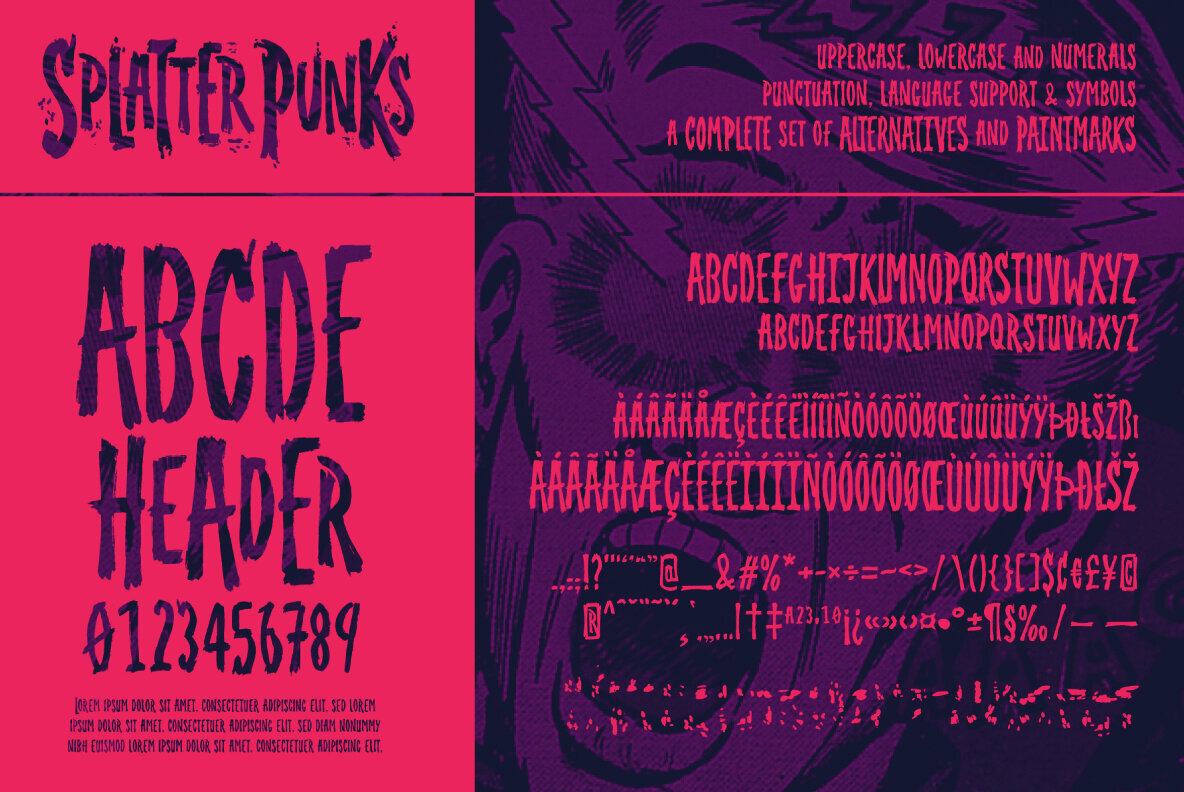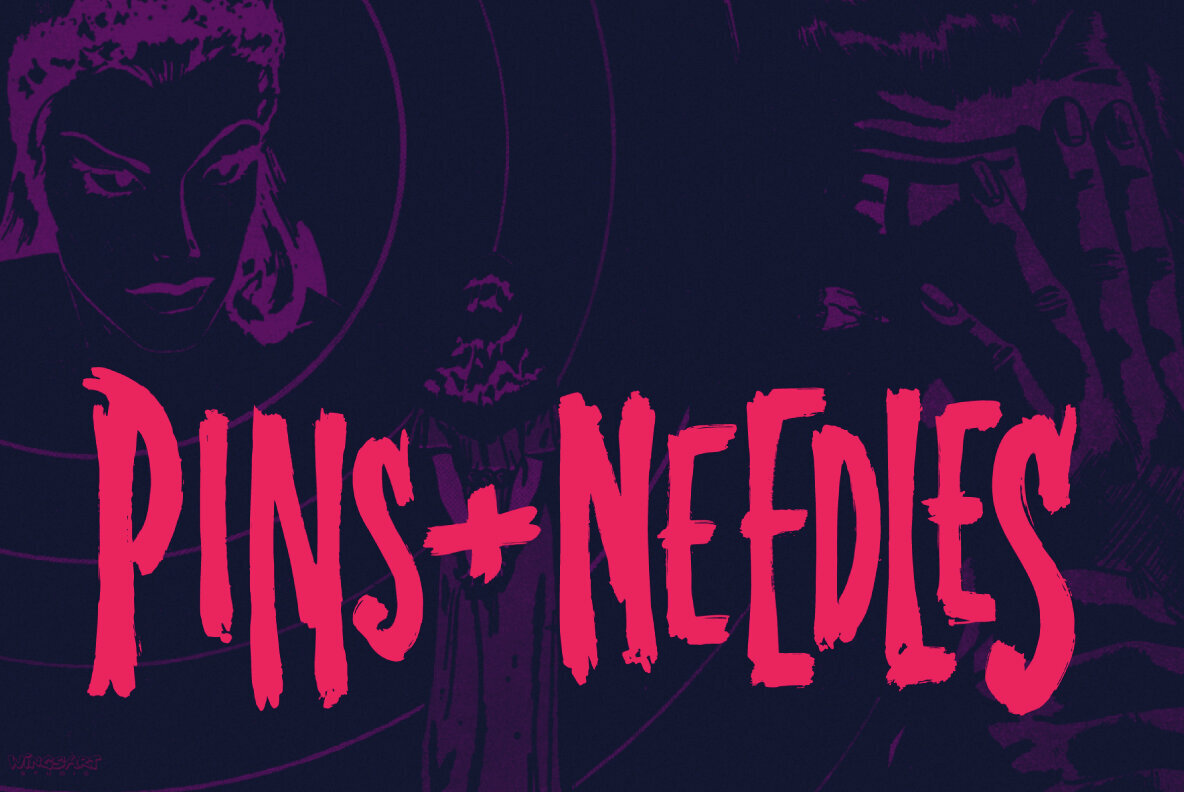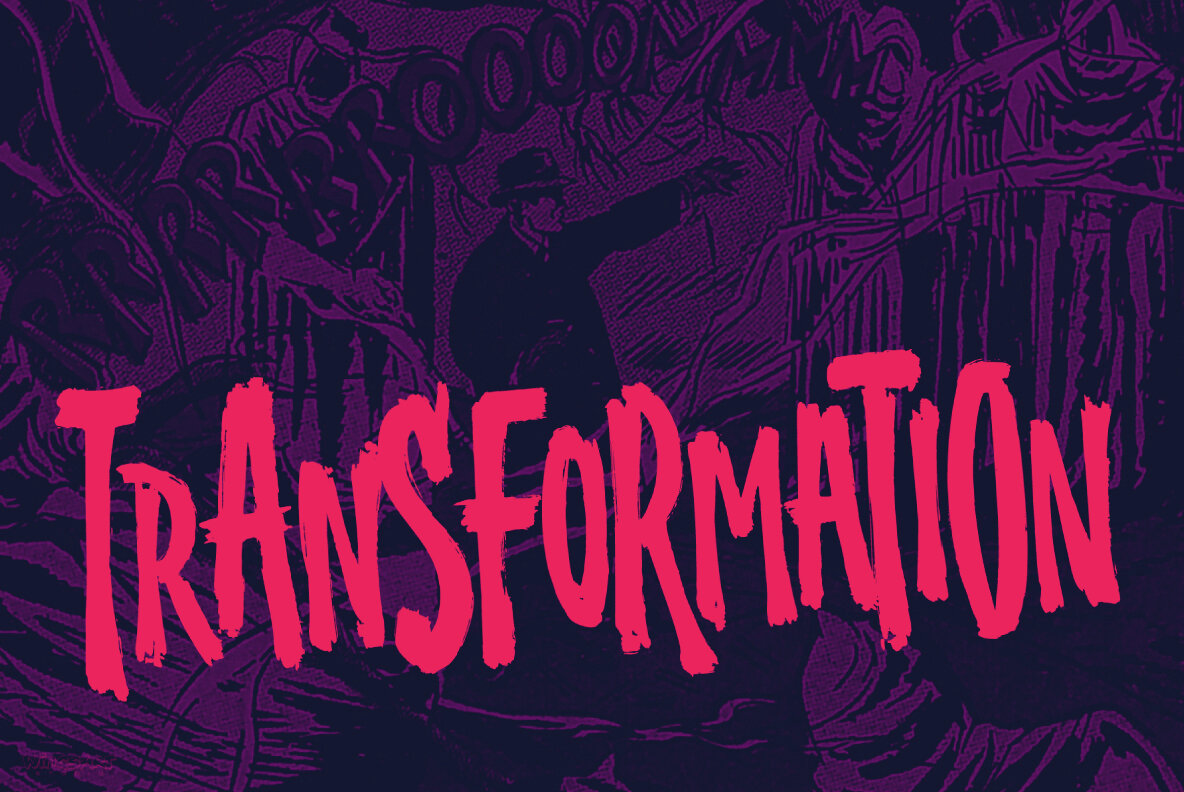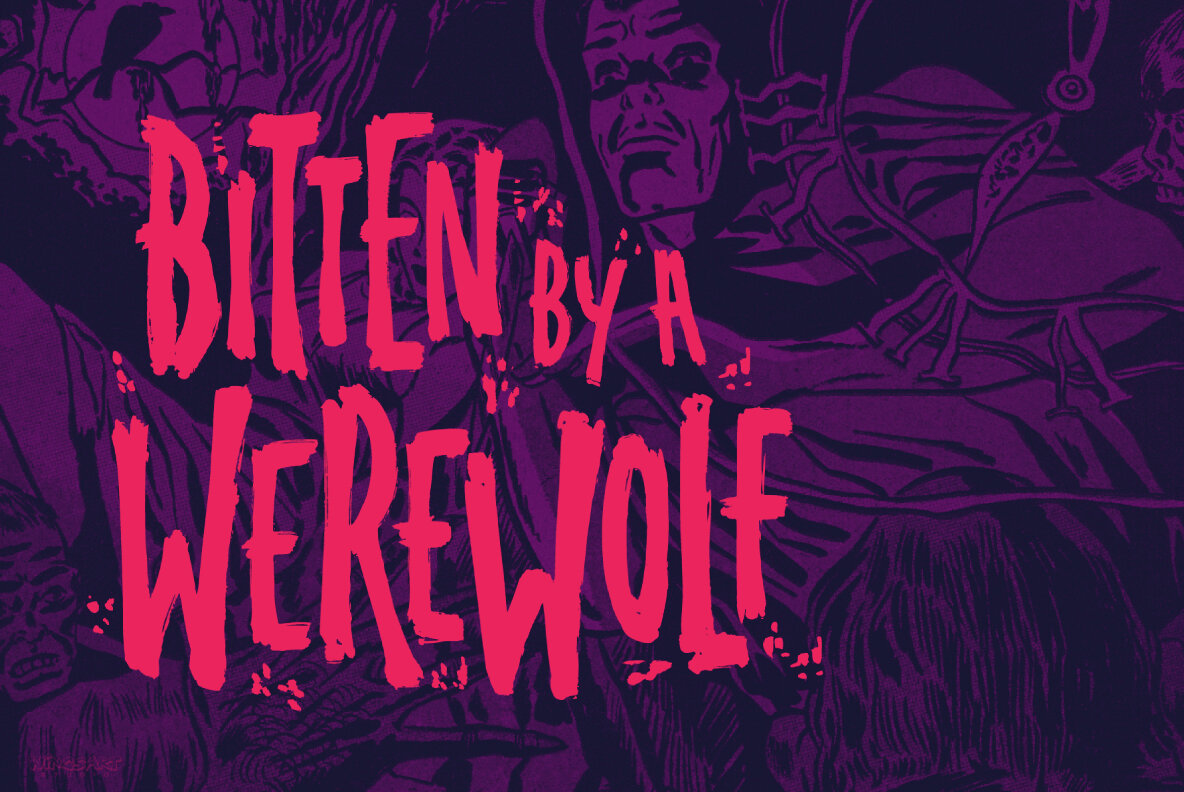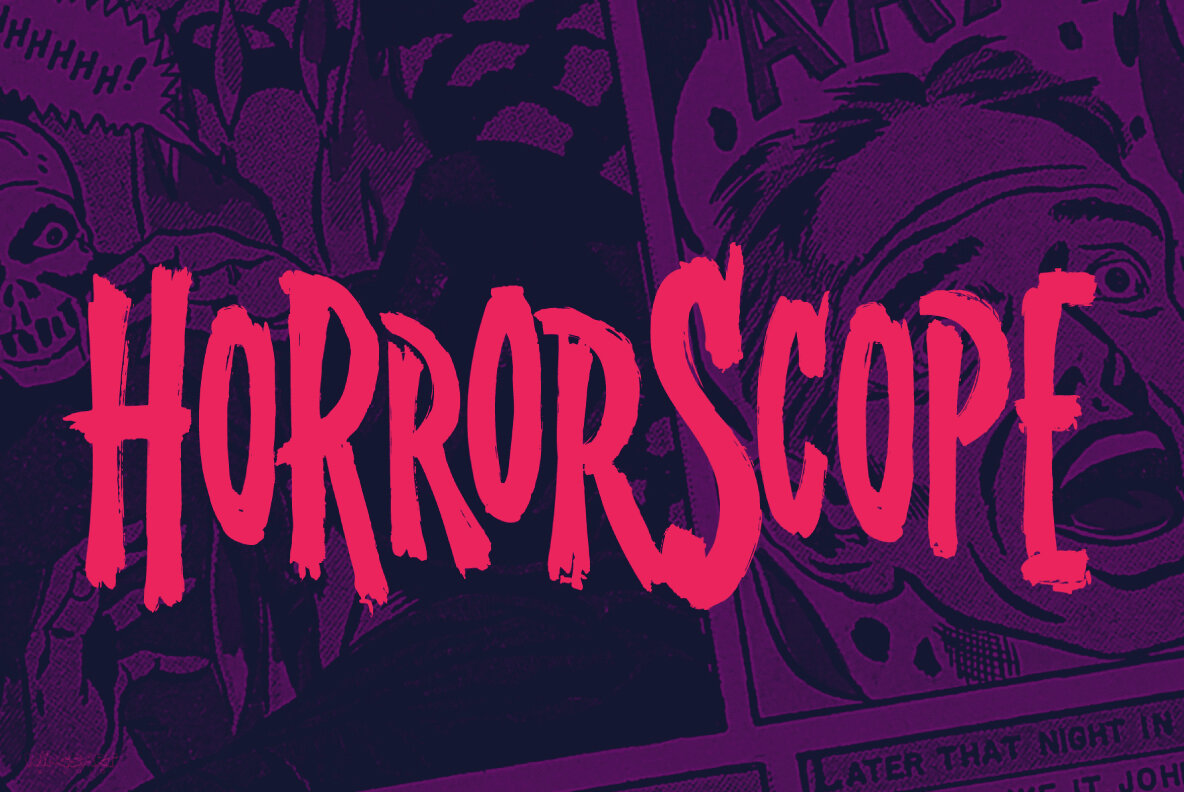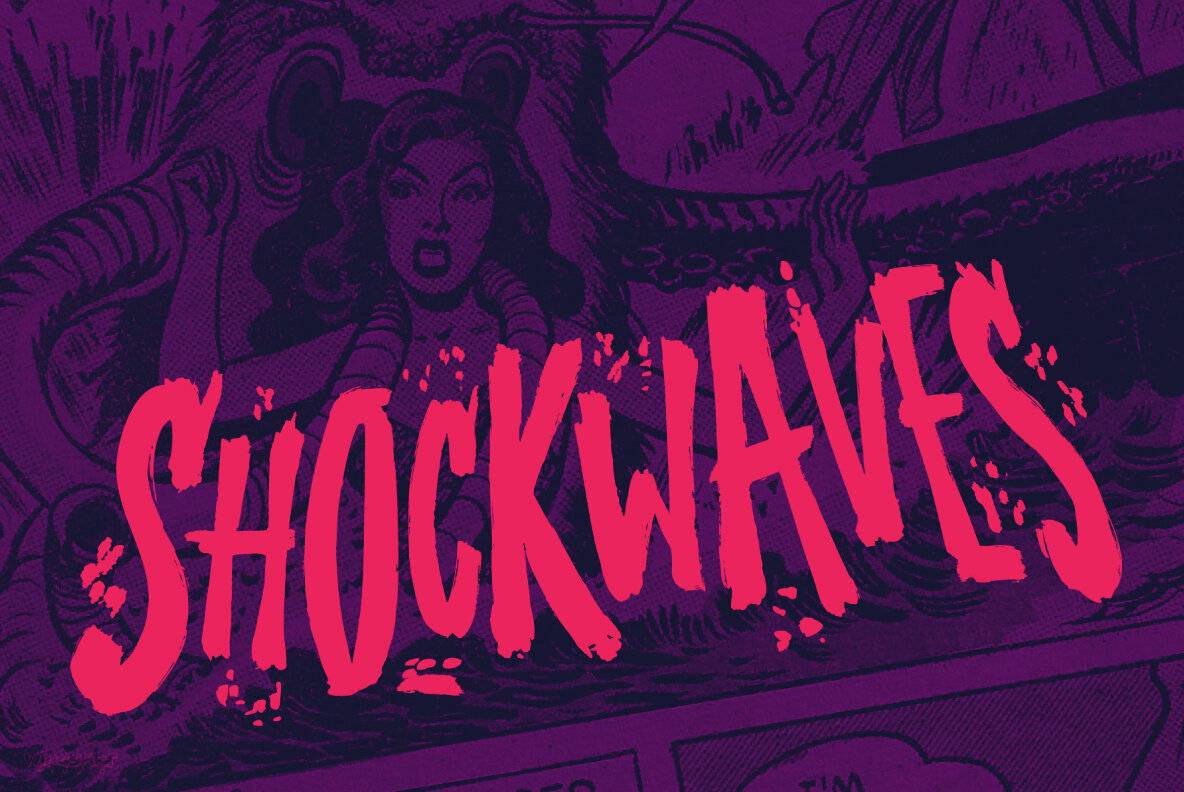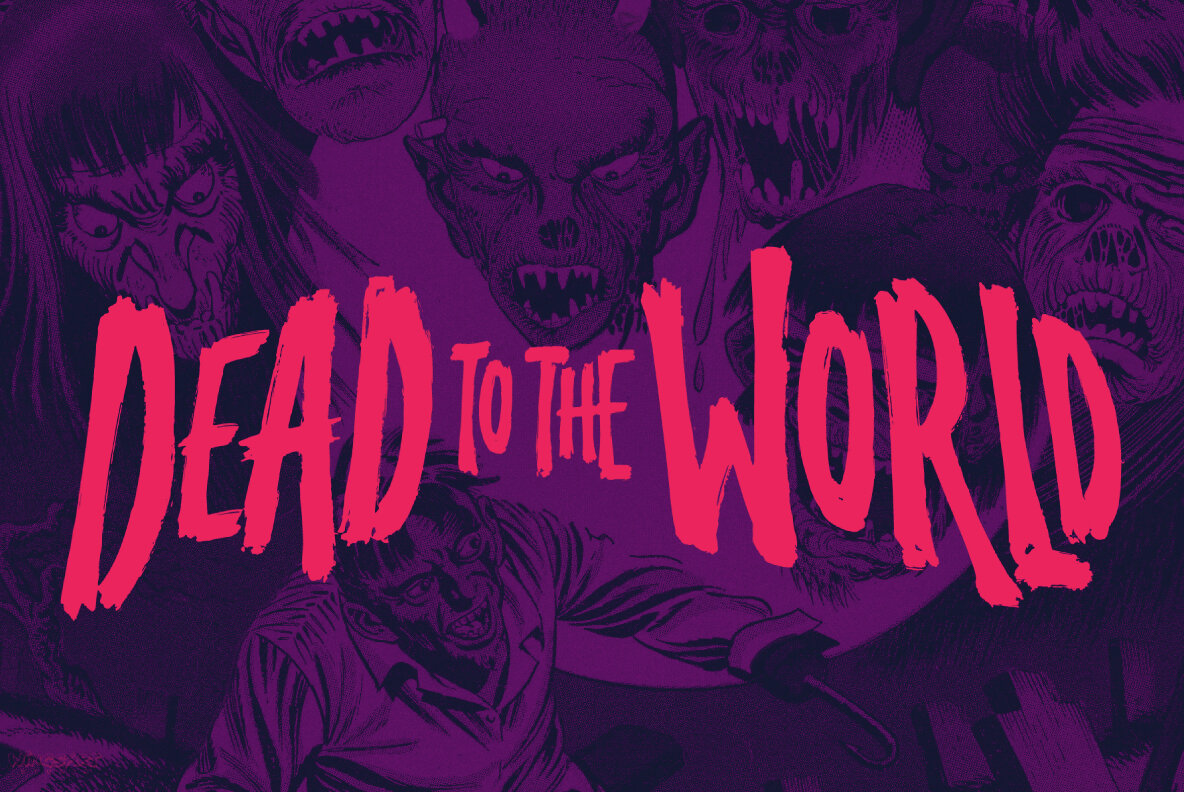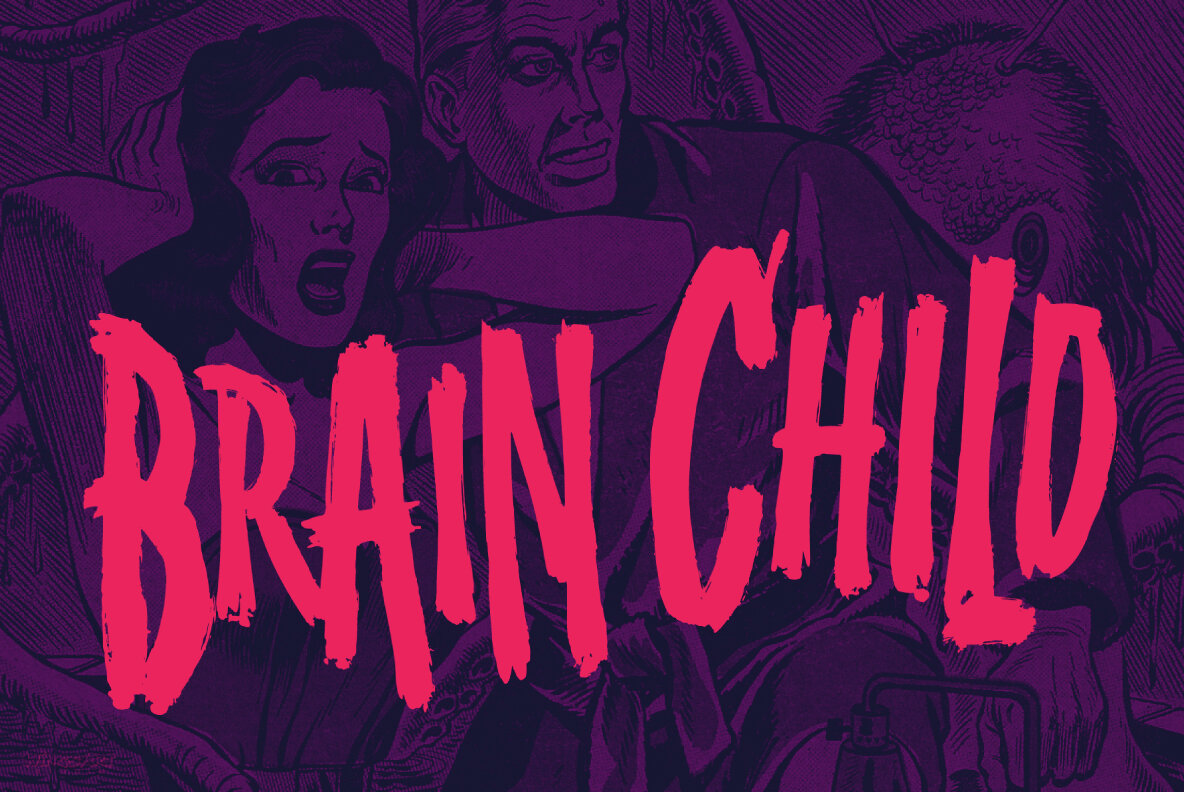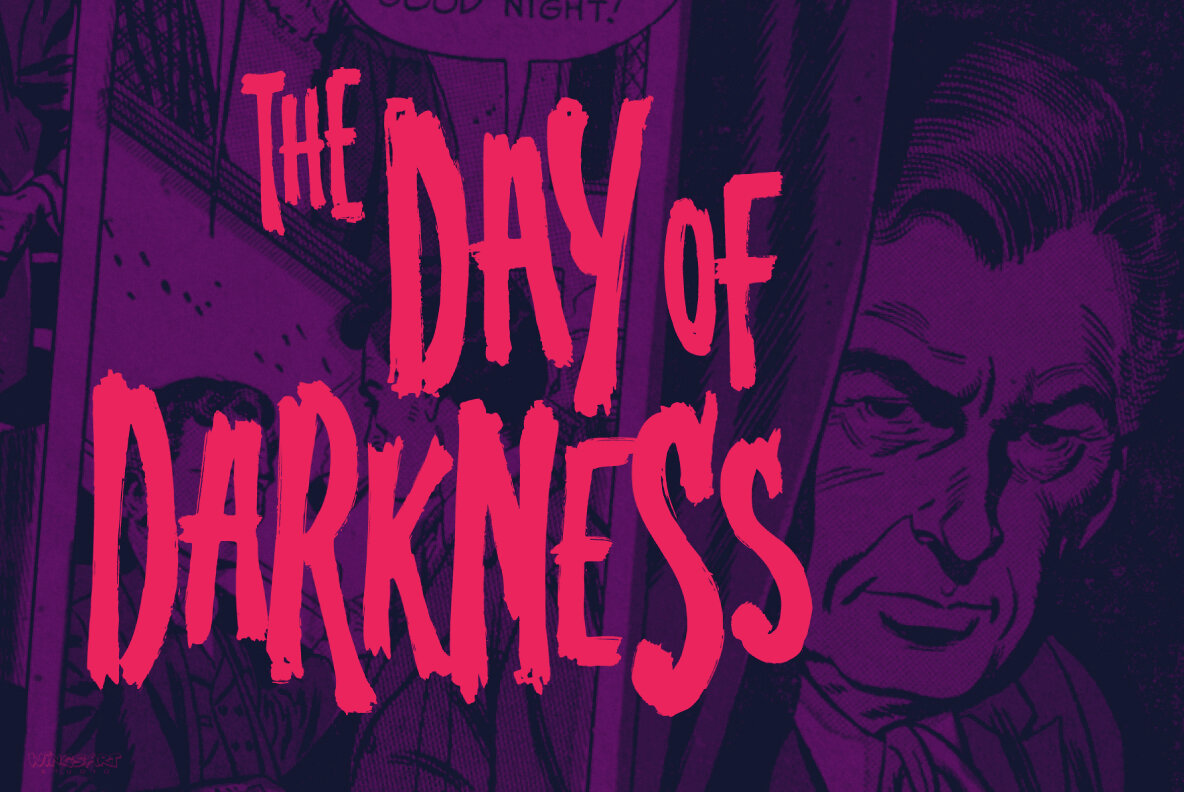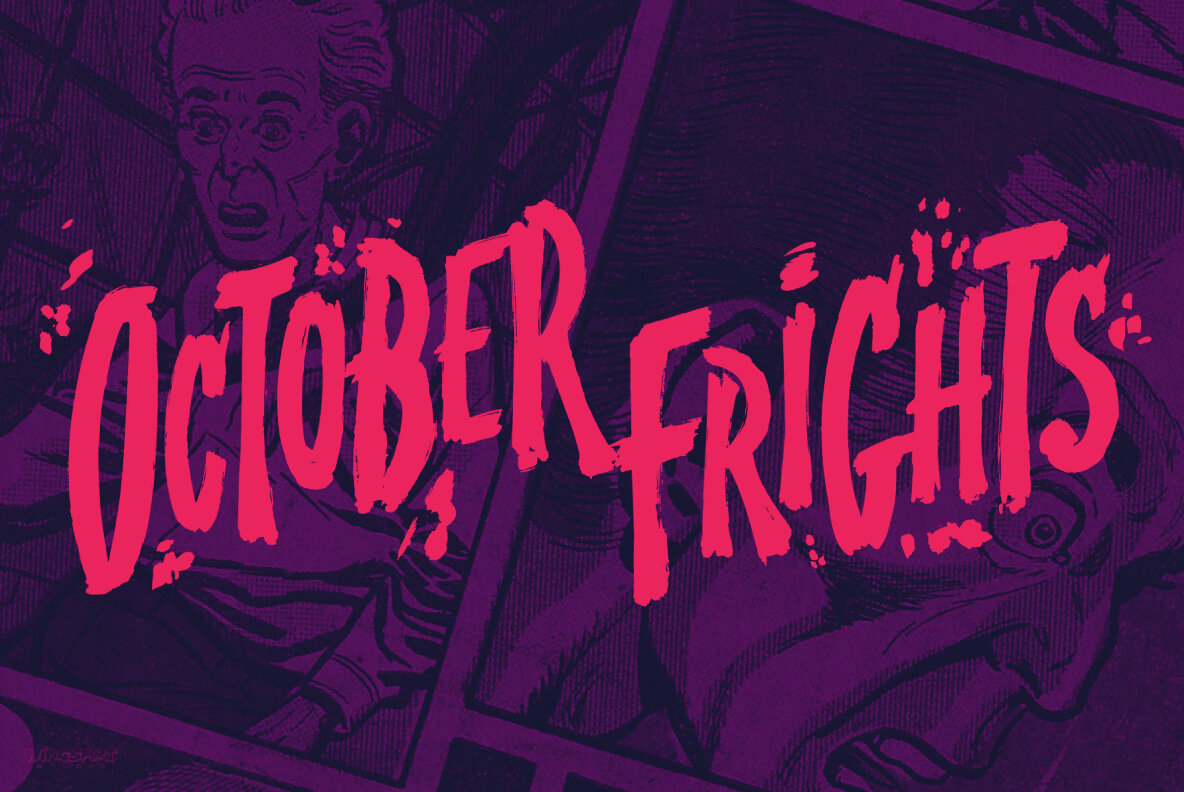
Splatterpunks Font
Splatterpunks
Splatterpunks Alternative
Splatterpunks Paintmarks
Introducing a fresh terror this Halloween, Splatterpunks is a hand-drawn brush font inspired by the blood-soaked pages of horror comics from the 1970s and 80s. This textured all-caps lettering evokes a spine-tingling tension that will leave your readers on tenterhooks. With a creeping, stretched look like that of a surprised cat, it offers of set of diabolical tools worthy of any horror fan! The Splatterpunks font family includes all-caps uppercase and lowercase characters, along with numerals, punctuation, symbols and language support. Also included are a complete set of alternative characters and additional paint marks, drips and splashes. Wingsart Studio Design Tip! The uppercase and lowercase characters work great when mixed in an alternating fashion, with shapes that combine to create a dynamic, almost unhinged look that's perfect for the Halloween season. Add the alternatives and paint marks into the mix and you'll have yourself a title or header design that looks truly custom-made. Special thanks to the Digital Comic Museum for the background images used in these visuals. All artwork is in the public domain and used for visual purposes only.
Based near Bristol, UK, Christopher King is the designer behind Wingsart Studio, a creative practice specializing in hand-drawn lettering and bespoke typography for film and television. Acting as both a working portfolio and an independent font foundry, Wingsart Studio showcases King’s deep appreciation for mi...